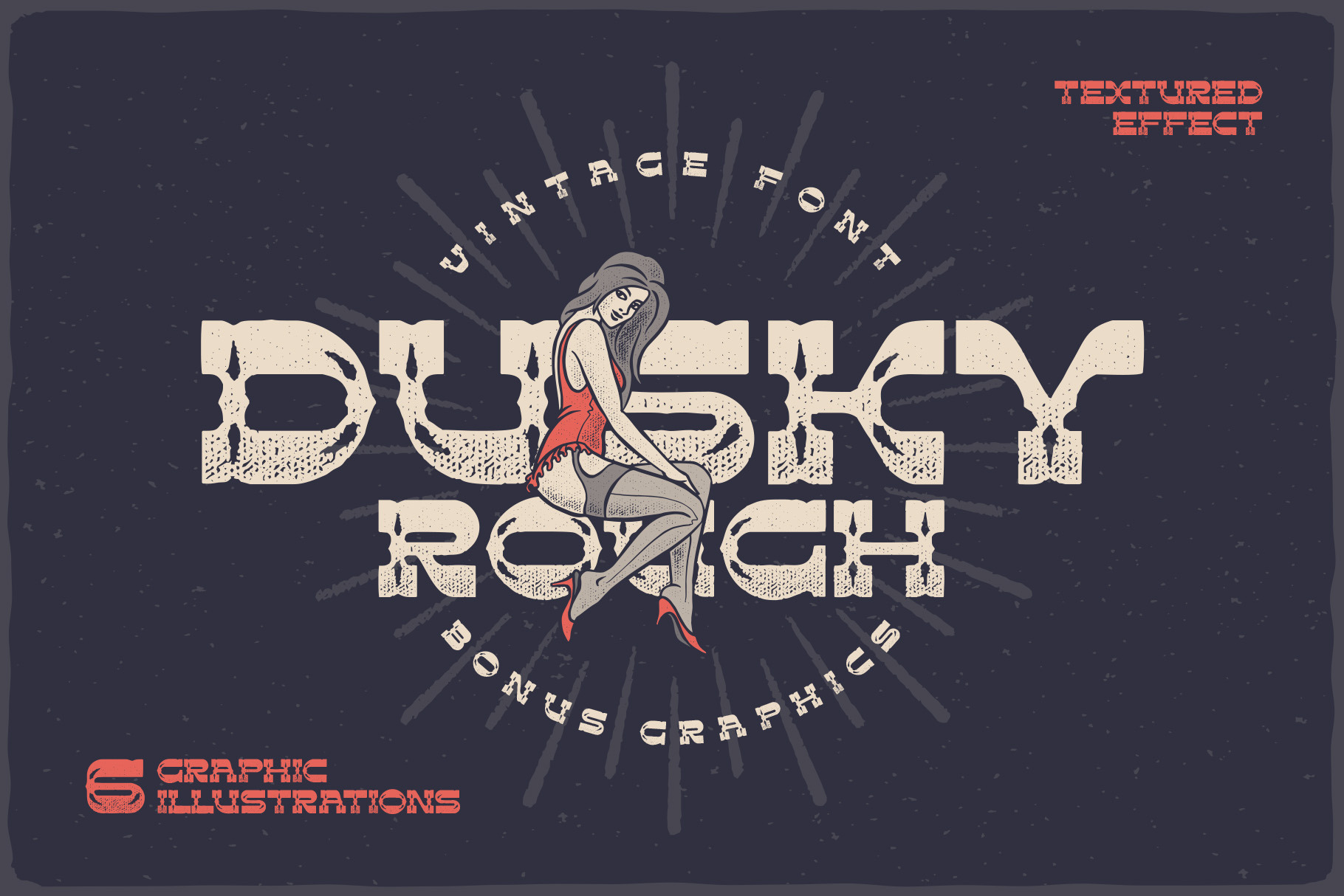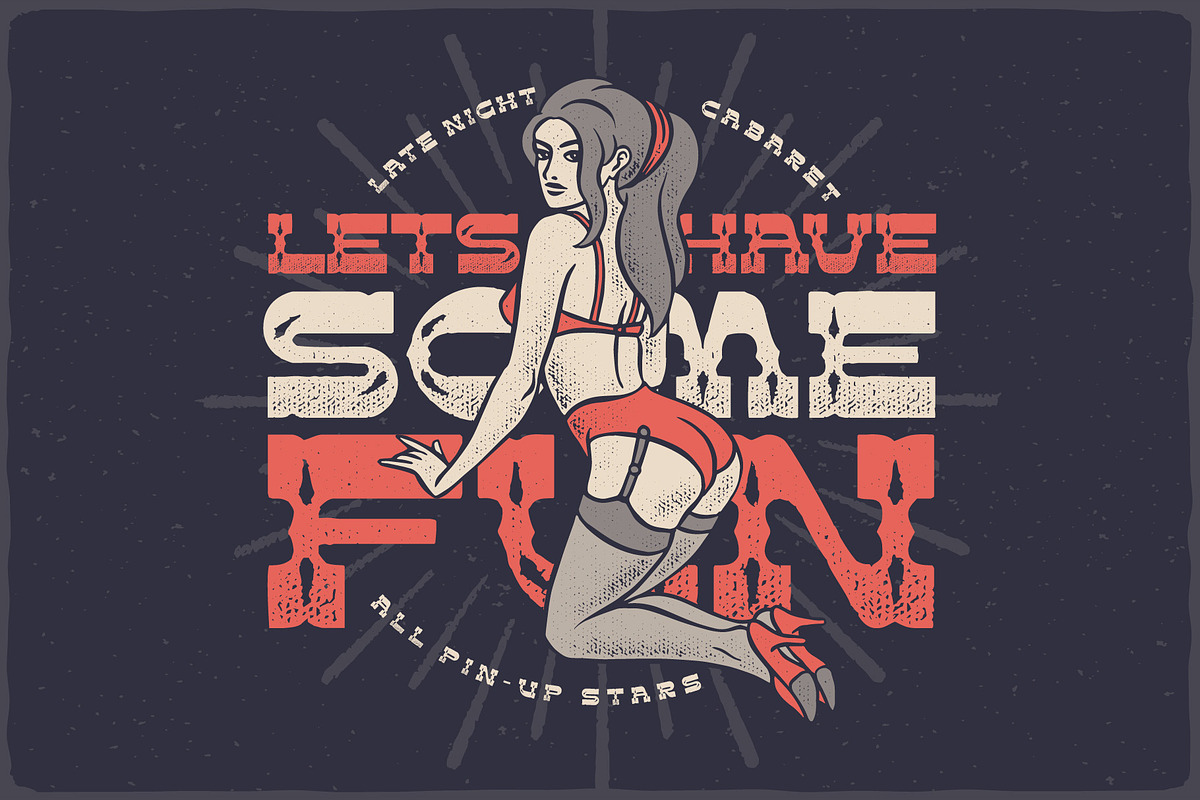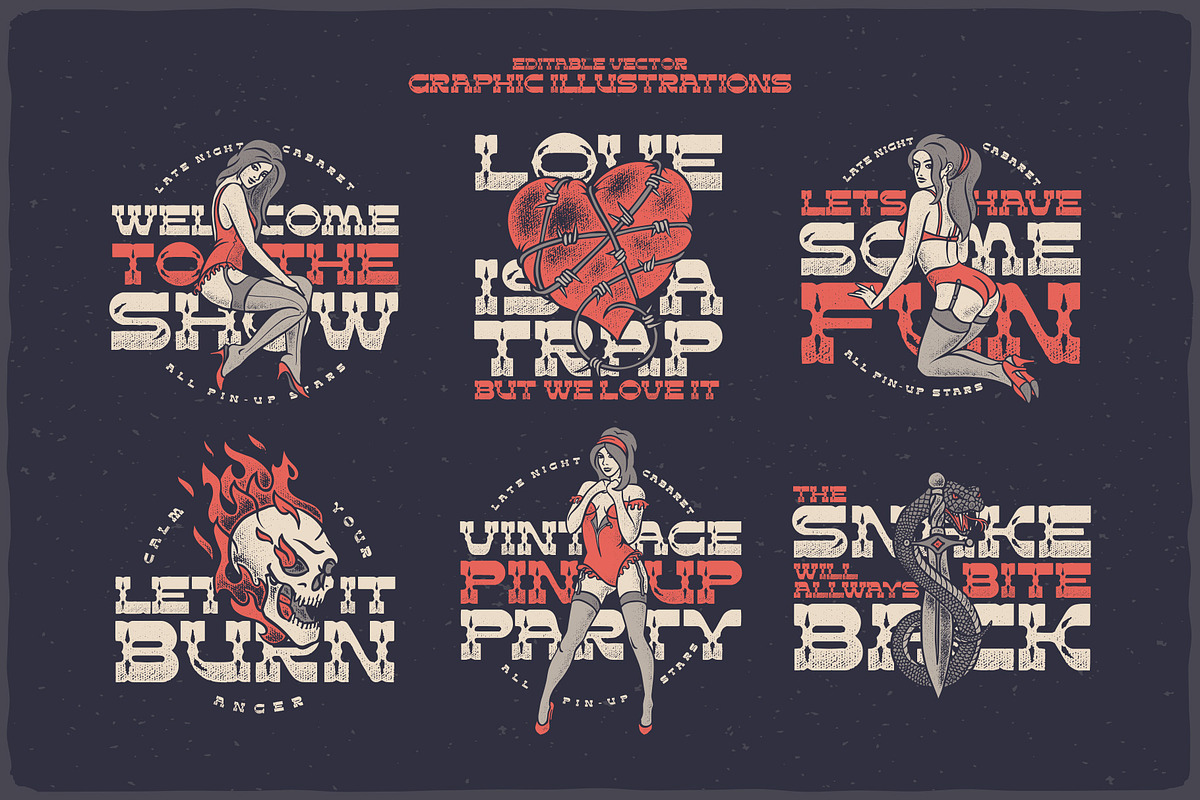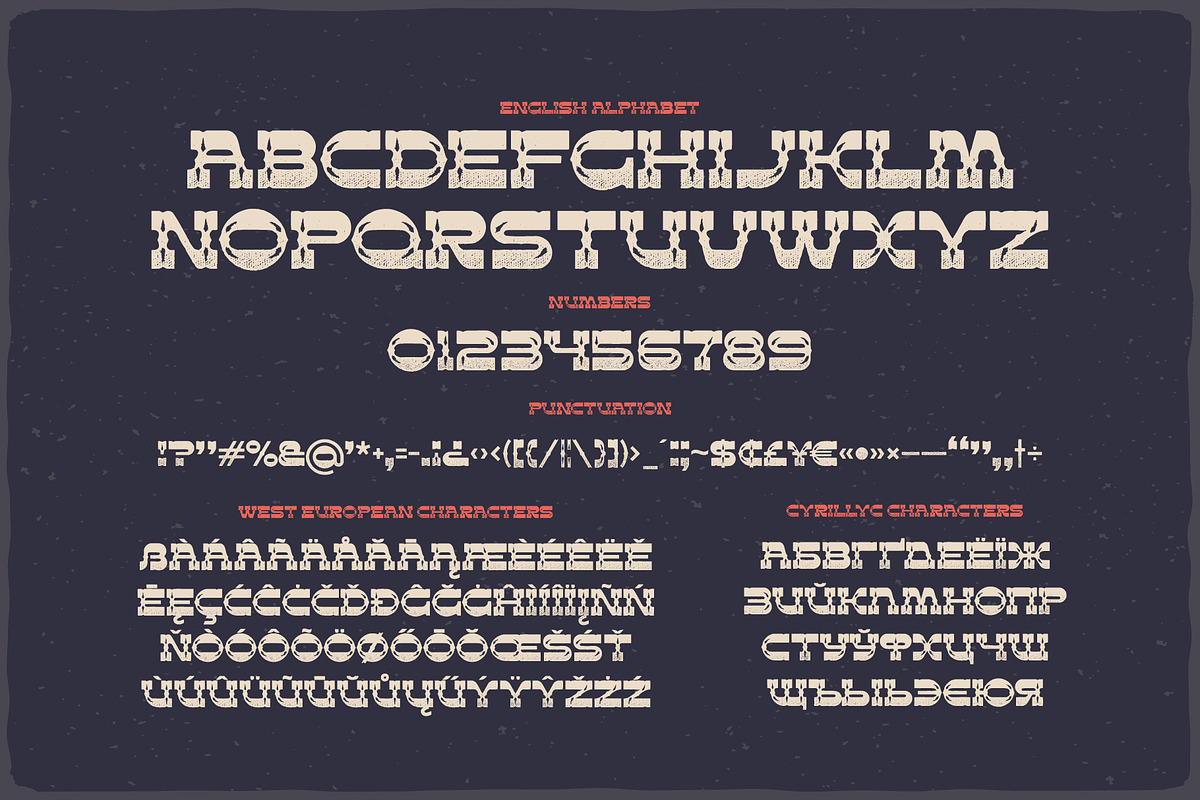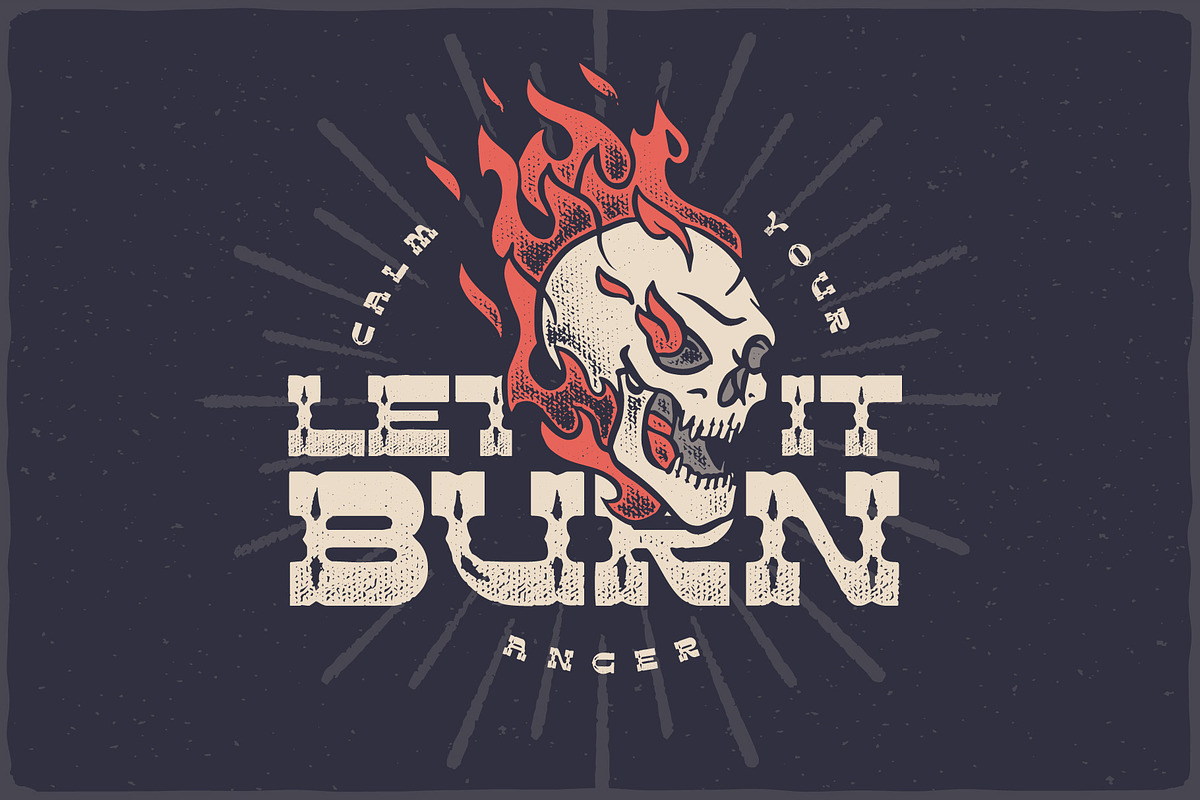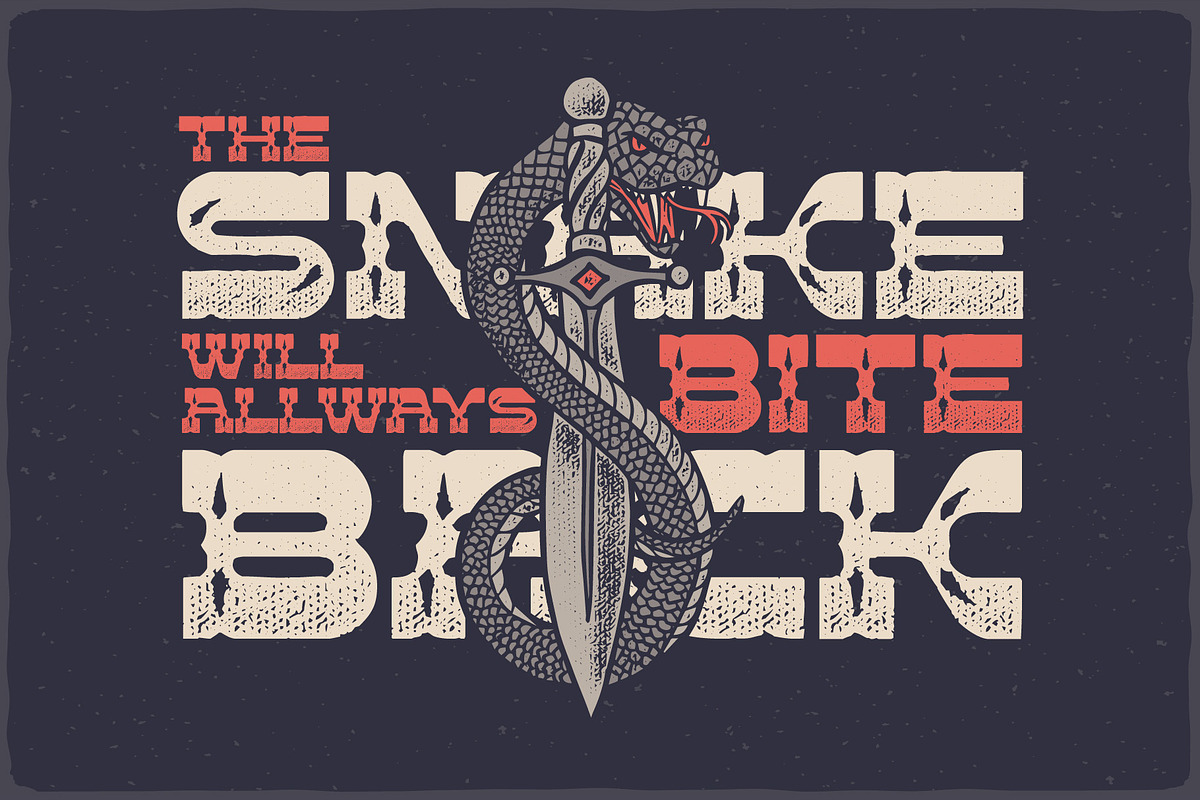
Dusky Rough - font and graphics
Hi there! Introducing a vintage font with rough textured effect. It's a bold western style font with slab serifs and decorative spikes. Dusky Rough supports most of west european and cyrillic languages (please check out a screenshoit with all available characters).